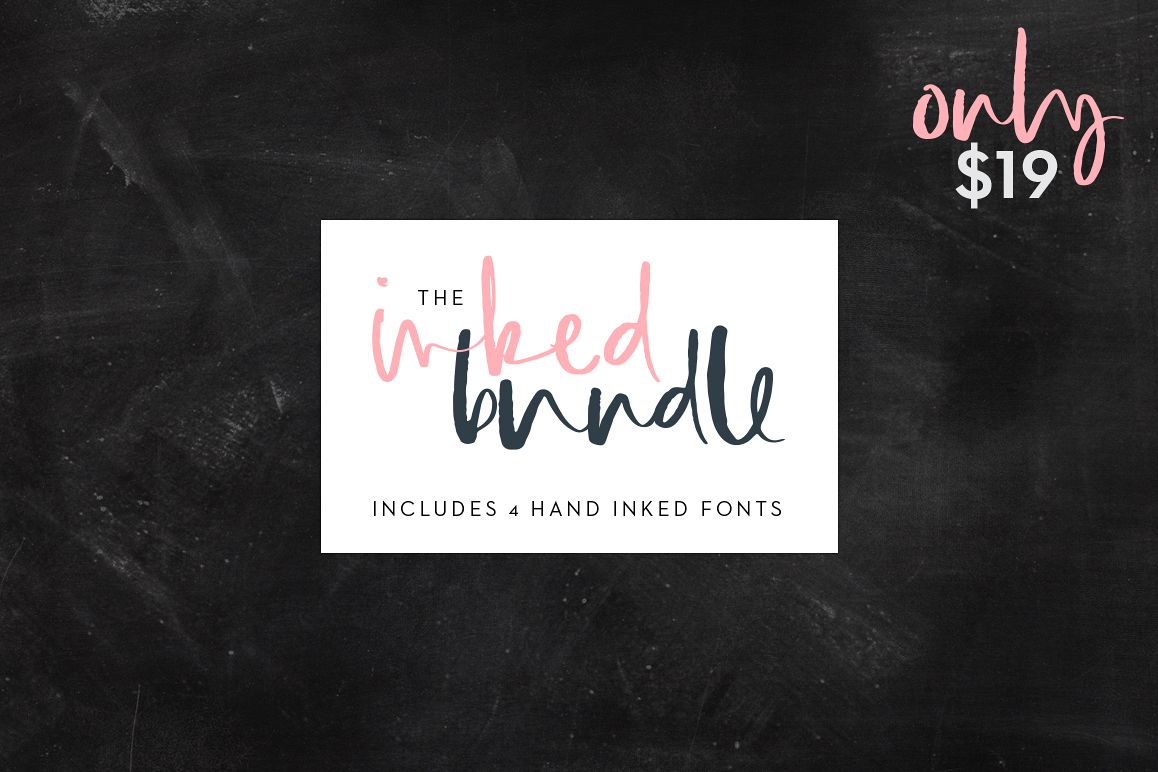
The Inked Bundle
Freya-Regular
Slapdash-Regular
Verve-Regular
Begrime-Regular
Say hello to the newest OTSS bundle : The Inked BundleIncludes my 4 most recent hand inked fonts:Begrime, Freya, Slapdash & Verve.Commercial Use OK.